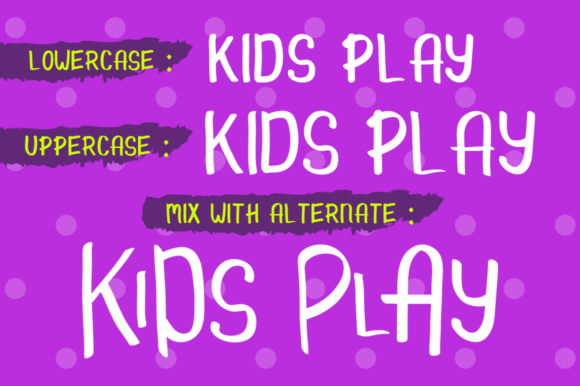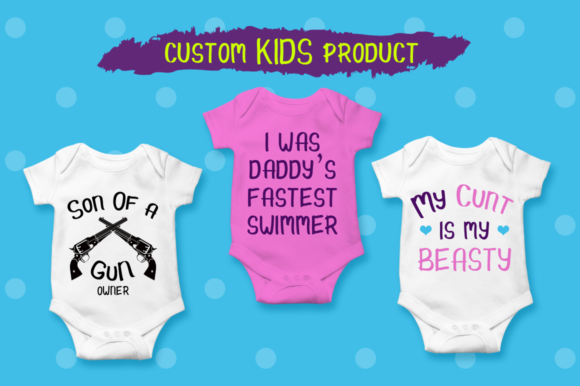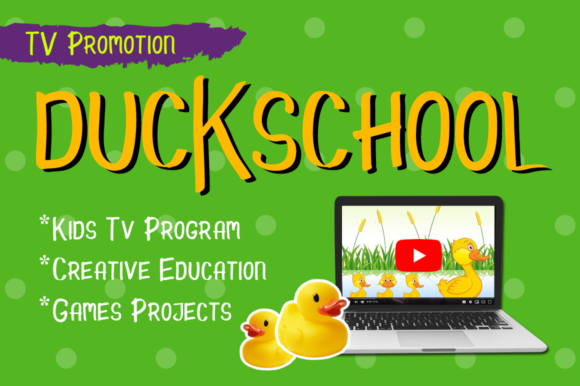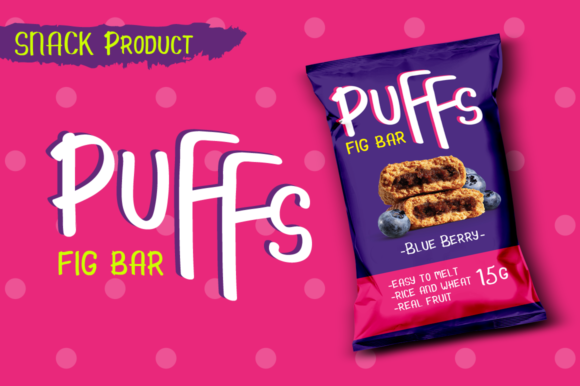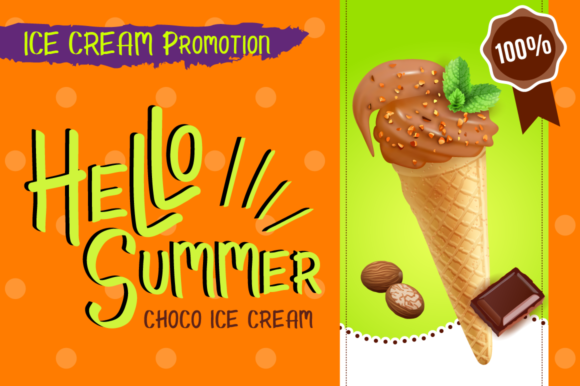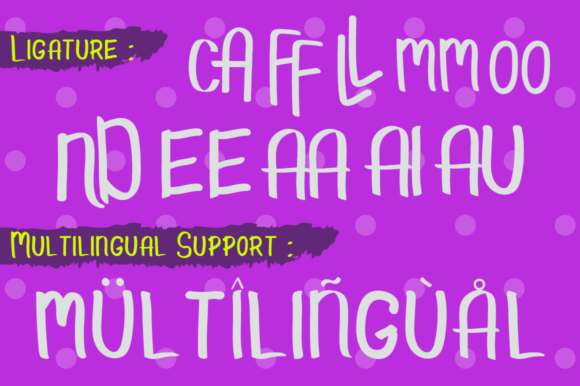
Candy Font: The Sweetest Addition to Your Design Projects
Are you looking for a font that can add a touch of whimsy and joy to your design projects? Look no further than the Candy Font! Inspired by the laughter of kids, this display font is sure to bring a smile to anyone’s face. In this article, we’ll dive into the world of Candy Font and explore its features, uses, and benefits for designers and crafters.
What is Candy Font?
Candy Font is a joyful and charming display font that is perfect for adding a playful twist to any design project. Its unique and quirky design is inspired by the laughter of kids, making it an ideal choice for projects that require a fun and youthful vibe. The font features rounded edges, bouncy curves, and a carefree spirit that is sure to capture the attention of your audience.
Features of Candy Font
So, what makes Candy Font so special? Here are some of its key features:
- Unique and Quirky Design: Candy Font has a one-of-a-kind design that is sure to stand out from the crowd.
- Rounded Edges: The font features rounded edges that give it a soft and playful look.
- Bouncy Curves: The curves in Candy Font are bouncy and fun, adding to its whimsical charm.
- Carefree Spirit: The font has a carefree spirit that is sure to bring a smile to anyone’s face.
Uses of Candy Font
Candy Font is a versatile font that can be used in a variety of design projects, including:
- Children’s Party Invitations: The font’s playful and whimsical design makes it perfect for kids’ party invitations.
- Crafting and DIY Projects: Candy Font is ideal for crafting and DIY projects, such as handmade cards, gift tags, and scrapbooking.
- Branding and Packaging: The font’s unique design makes it a great choice for branding and packaging projects that require a fun and youthful vibe.
- Social Media Graphics: Candy Font can be used to create eye-catching social media graphics that are sure to grab the attention of your audience.
Benefits of Using Candy Font
So, why should you use Candy Font in your design projects? Here are some of its benefits:
- Adds a Touch of Whimsy: Candy Font adds a touch of whimsy and playfulness to any design project.
- Grabs Attention: The font’s unique design is sure to grab the attention of your audience.
- Perfect for Kids’ Projects: Candy Font is perfect for projects that require a fun and youthful vibe, such as kids’ party invitations and children’s books.
- Easy to Read: Despite its playful design, Candy Font is easy to read and understand.
Tips for Using Candy Font
Here are some tips for using Candy Font in your design projects:
- Use it in Moderation: While Candy Font is playful and fun, it’s best to use it in moderation to avoid overwhelming your design.
- Pair it with Other Fonts: Candy Font can be paired with other fonts to create a unique and interesting design.
- Experiment with Colors: The font’s playful design makes it perfect for experimenting with different colors and color combinations.
In conclusion, Candy Font is a joyful and charming display font that is perfect for adding a touch of whimsy to any design project. Its unique and quirky design, rounded edges, bouncy curves, and carefree spirit make it an ideal choice for projects that require a fun and youthful vibe. Whether you’re a designer or crafter, Candy Font is sure to bring a smile to your face and inspire your creativity.